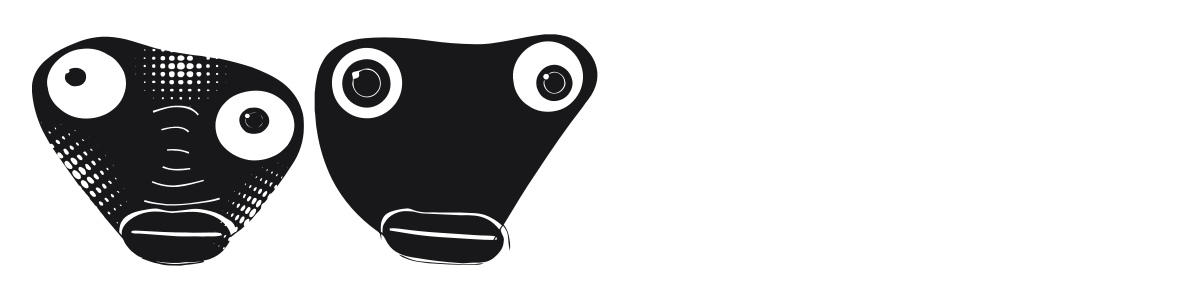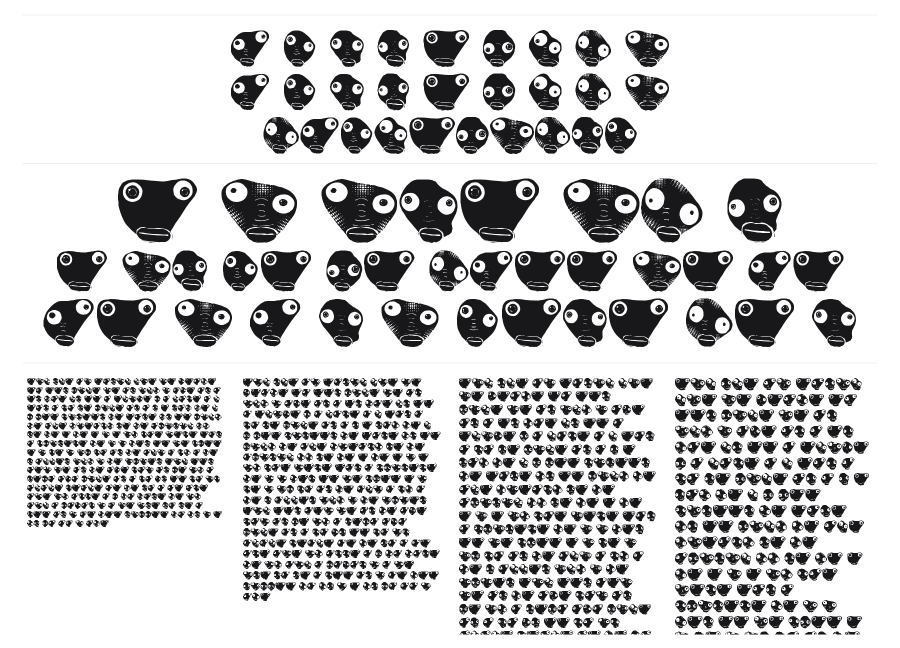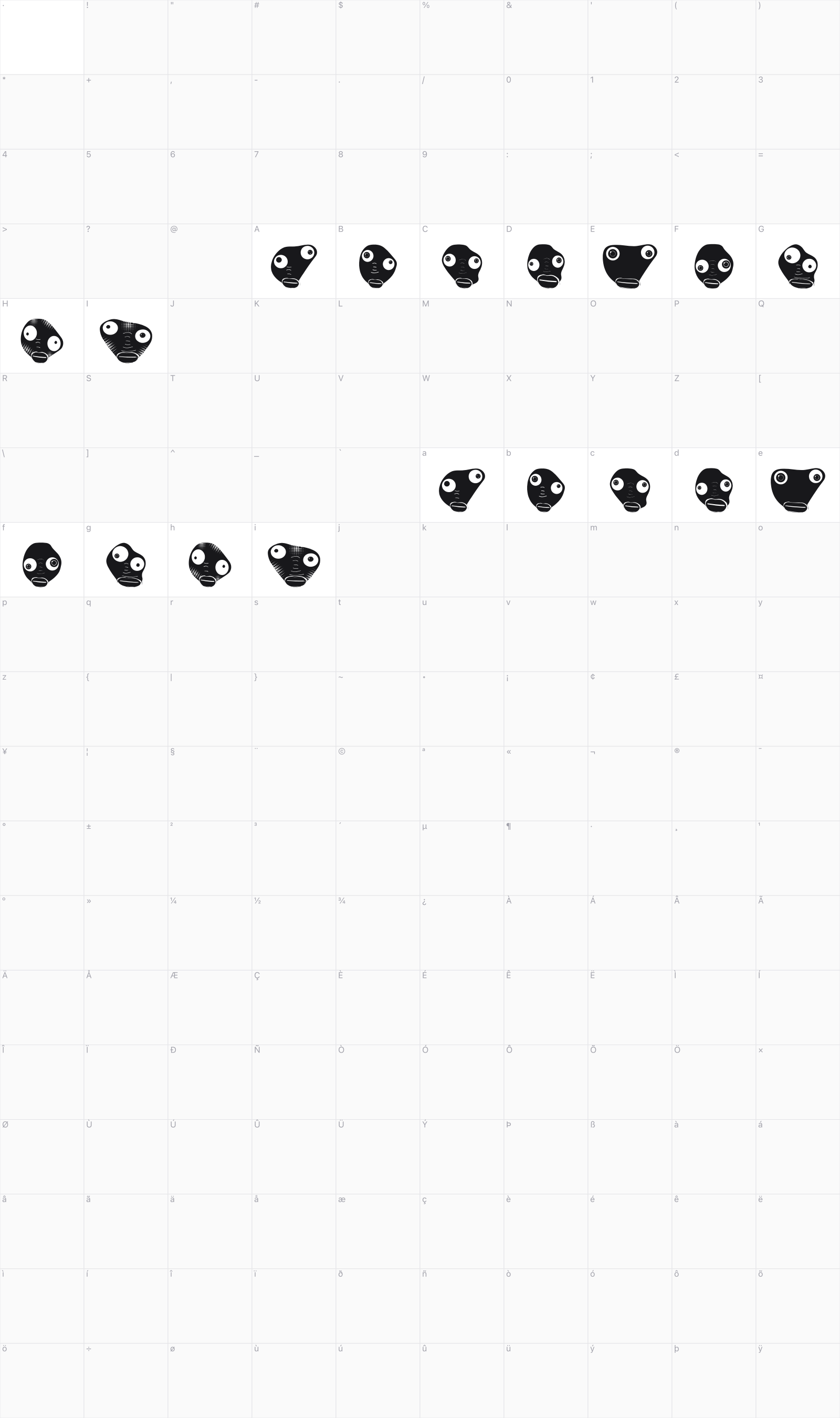
Knistern
Knistern is a dingbat font filled with squat, googly-eyed cartoon creatures that look like they escaped from a sketchbook. Each glyph is a slightly different variation of the same lovable blob face, making it easy to build patterns, borders, or chaotic arrangements. The result is consistently weird in the best way.